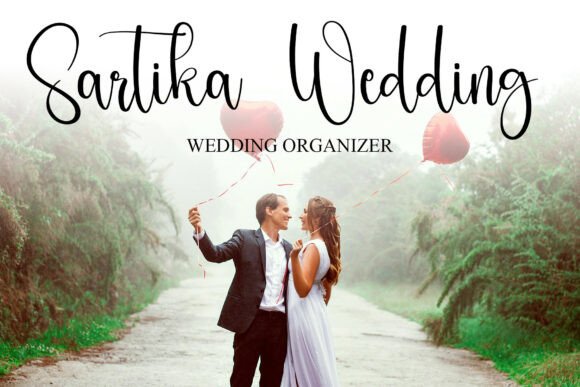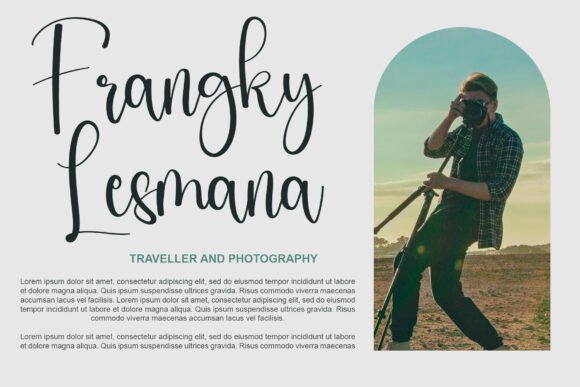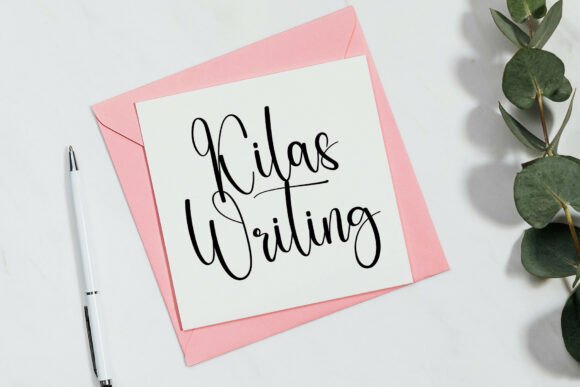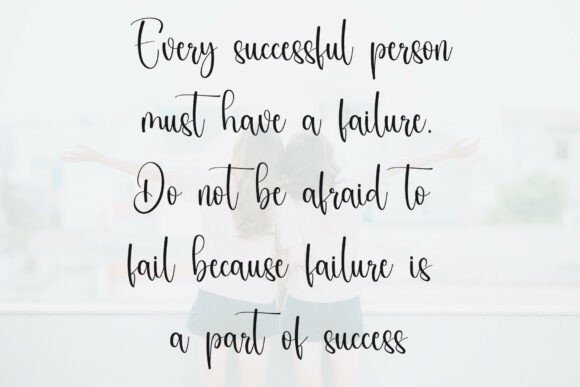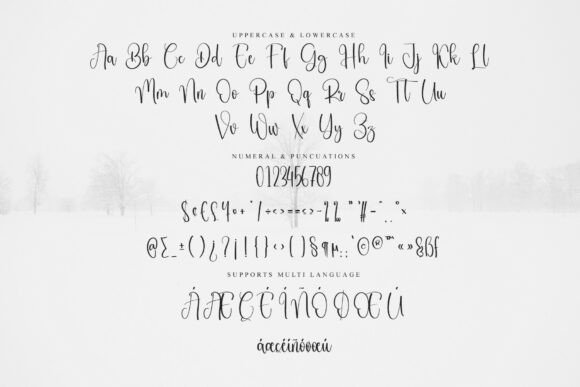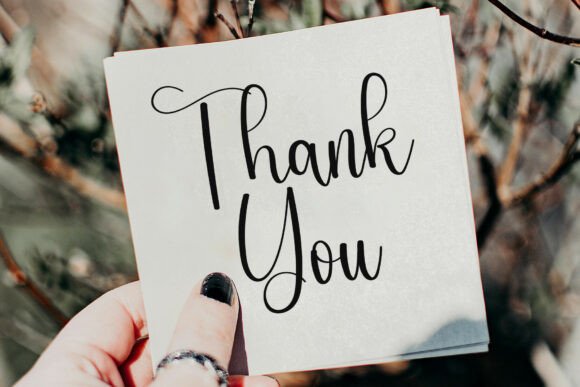
The Birth of a Beautiful Font: Celebrating Birthday
I’ll never forget the time I was working on a branding project for a boutique bakery. I had the logo design almost finalized, but something was missing – the perfect font. I scoured the internet, tried out dozens of fonts, but none seemed quite right. That was until I stumbled upon Birthday, a delightful elegant script font that added the perfect touch of sophistication and charm to the design. In this article, I’ll share my experience with Birthday, an honest review, a practical guide on how to use it, and some helpful tips and tricks.
An Honest Review of Birthday
So, what makes Birthday so special? Let’s dive into the good stuff! 😊
- ✨ Elegant and charming: Birthday exudes a sense of refinement and luxury, making it perfect for high-end branding, invitations, and packaging.
- ✅ Fluid and natural strokes: The font’s handwritten script style has a beautiful, organic feel that adds a personal touch to any design.
- 🌈 Versatile: Birthday is suitable for a wide range of creative projects, from logos and branding to greeting cards and social media graphics.
Of course, no font is perfect, and Birthday has a few minor quirks:
- 🤔 Limited use of uppercase letters: While the font’s uppercase letters are beautiful, they might not be as versatile as you’d like. Be sure to use them sparingly to add emphasis.
- ⚠️ Some glyphs may require manual adjustment: Depending on the design, you might need to tweak certain glyphs to get the perfect fit. But trust me, it’s worth it!
The Story Behind Birthday
Birthday was designed by a talented typographer who wanted to create a font that would evoke the feeling of a special celebration. With its elegant strokes and charming personality, it’s no wonder Birthday has become a favorite among designers and crafters.
| Is Birthday suitable for body text? | While Birthday is beautiful, it’s best suited for headlines, titles, and short paragraphs. For longer body text, you may want to choose a more legible font. |